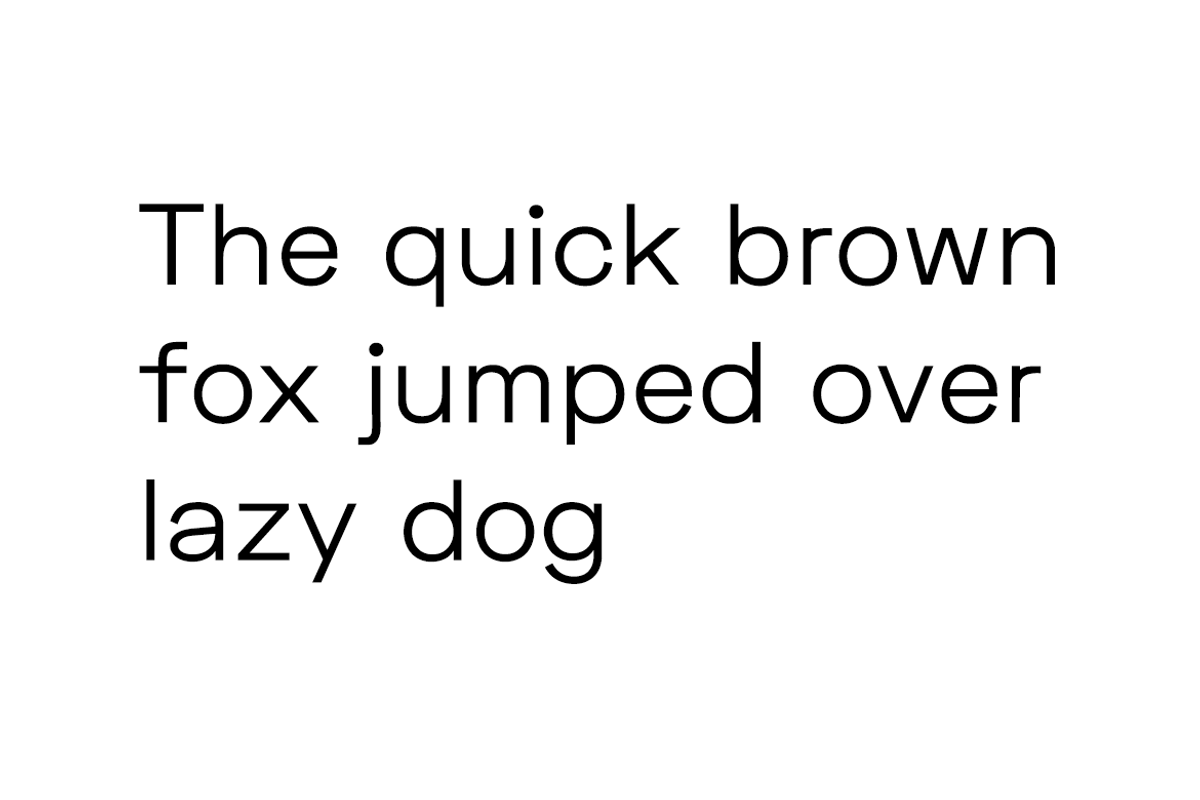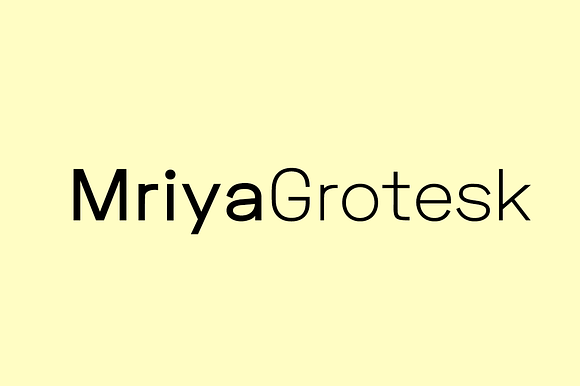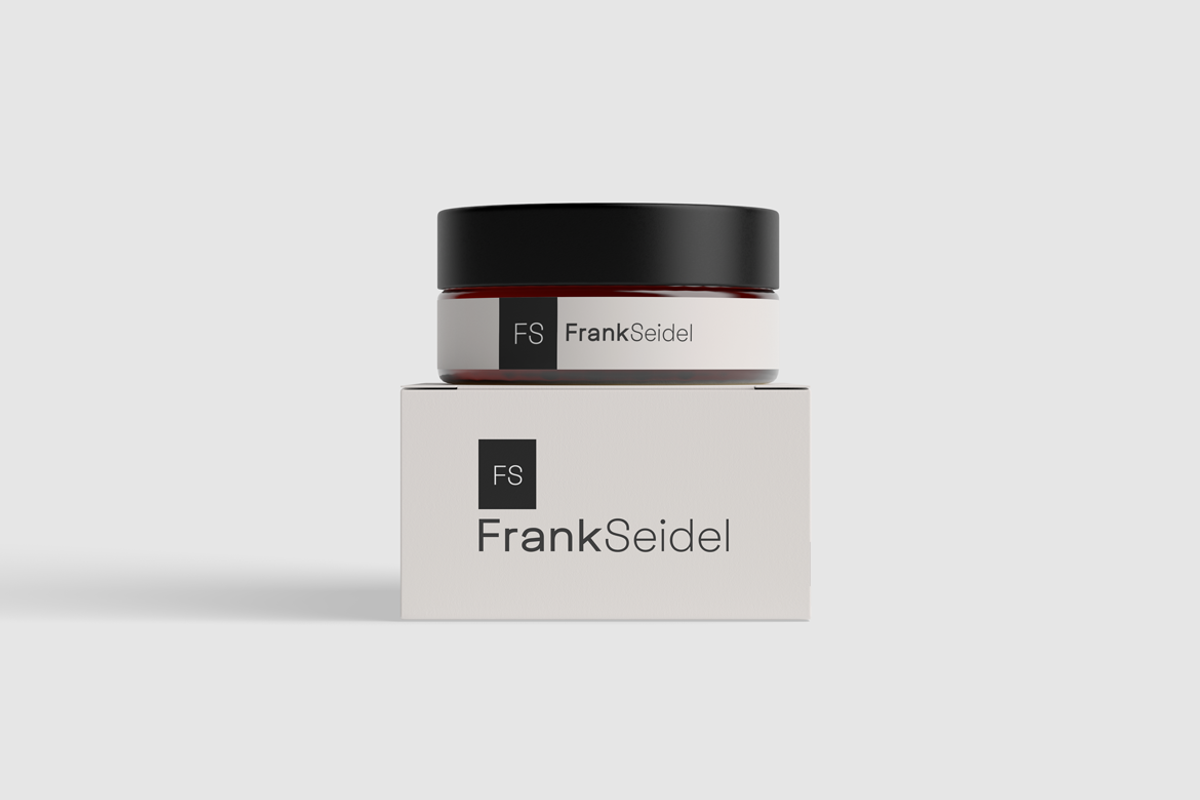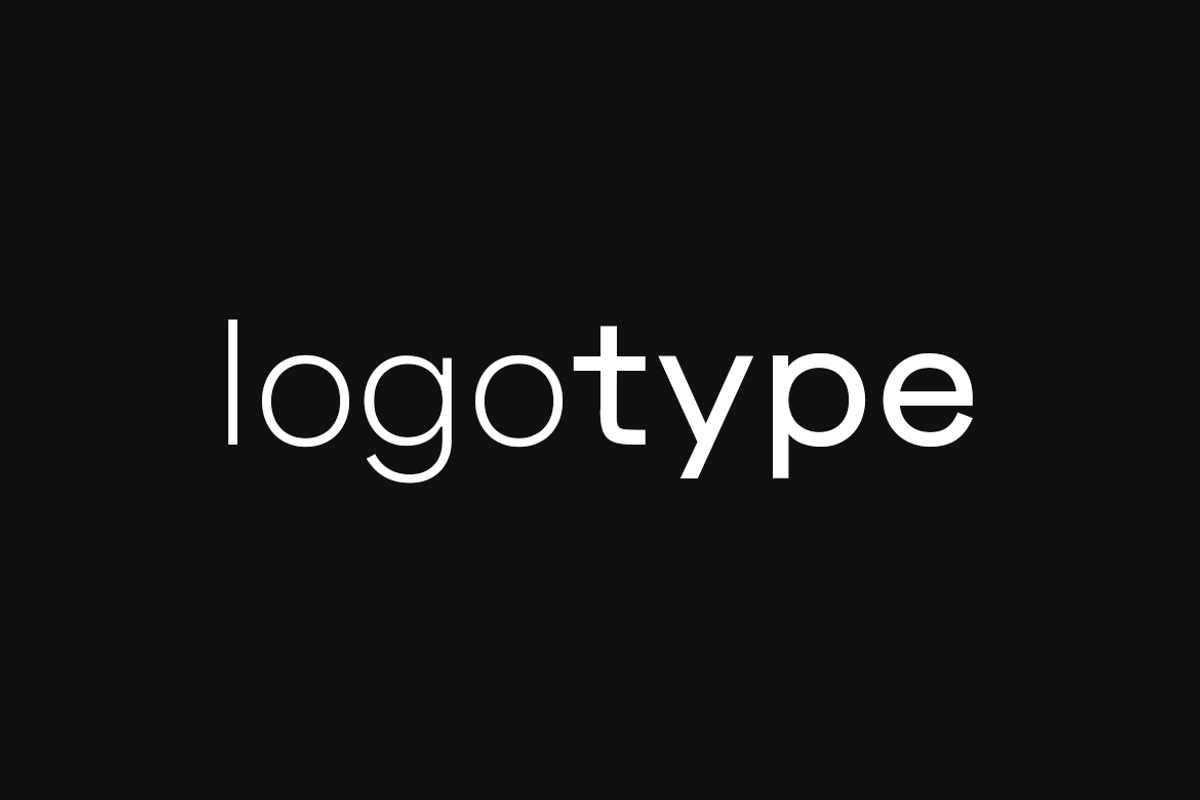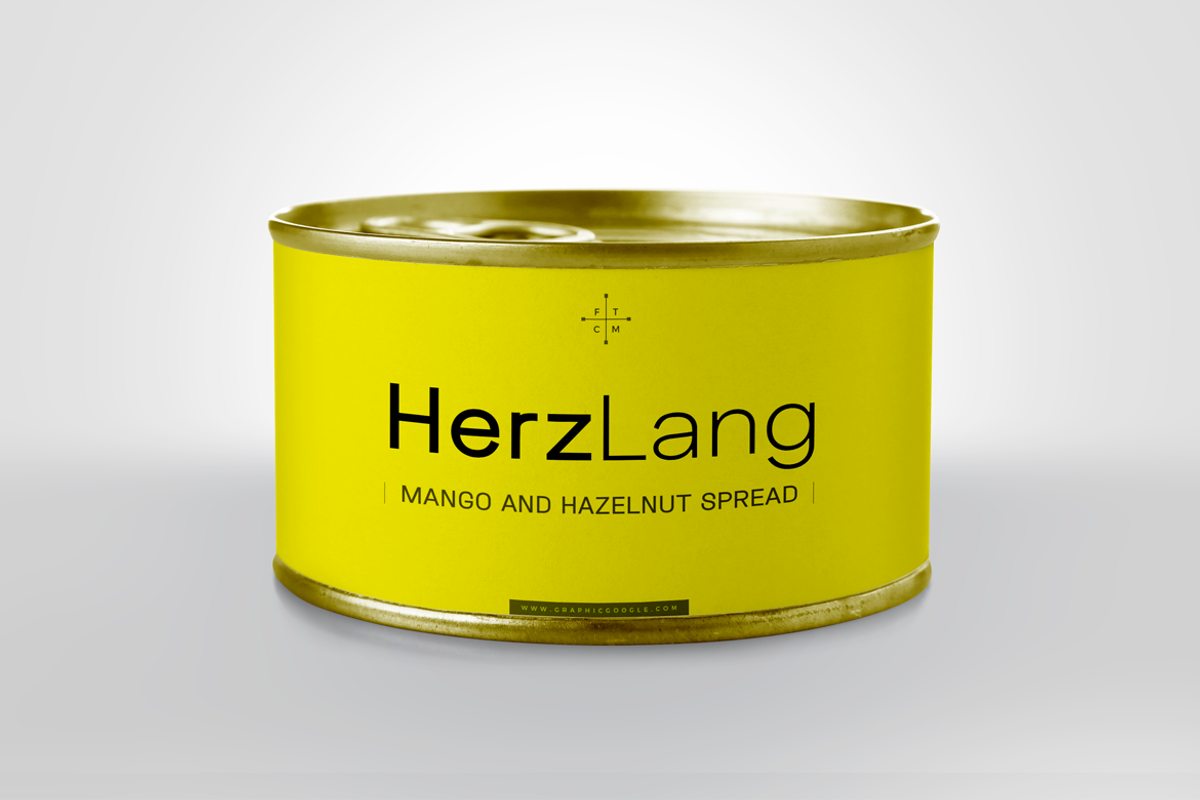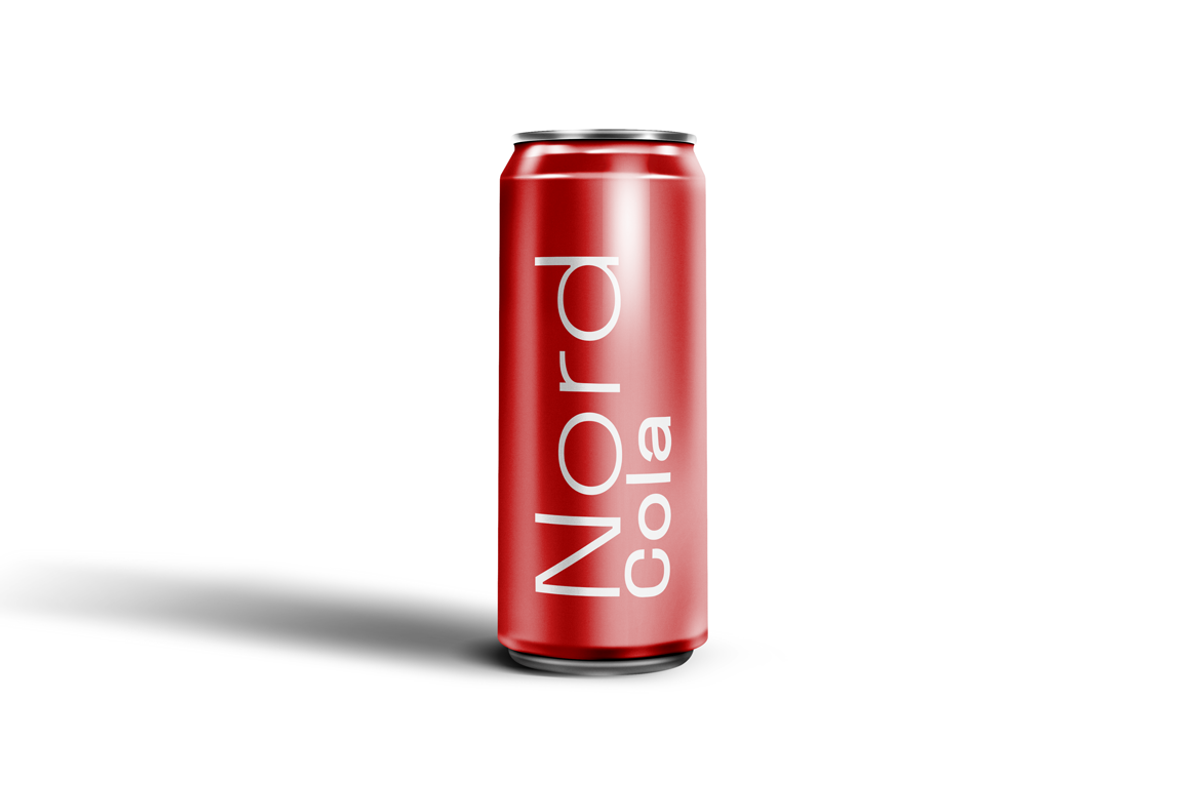
Mriya Grotesk - Sans-Serif Typeface
Mriya Grotesk - a pure Sans-Serif typeface created with perfection at the same time keeping the premium type design aesthetics at it's level best. A perfect typeface for any kind of web / print usage - body text, headlines, logotypes, branding, marketing graphics, corporate identities and more. Just see the demo images to get an idea about the typeface usage examples.